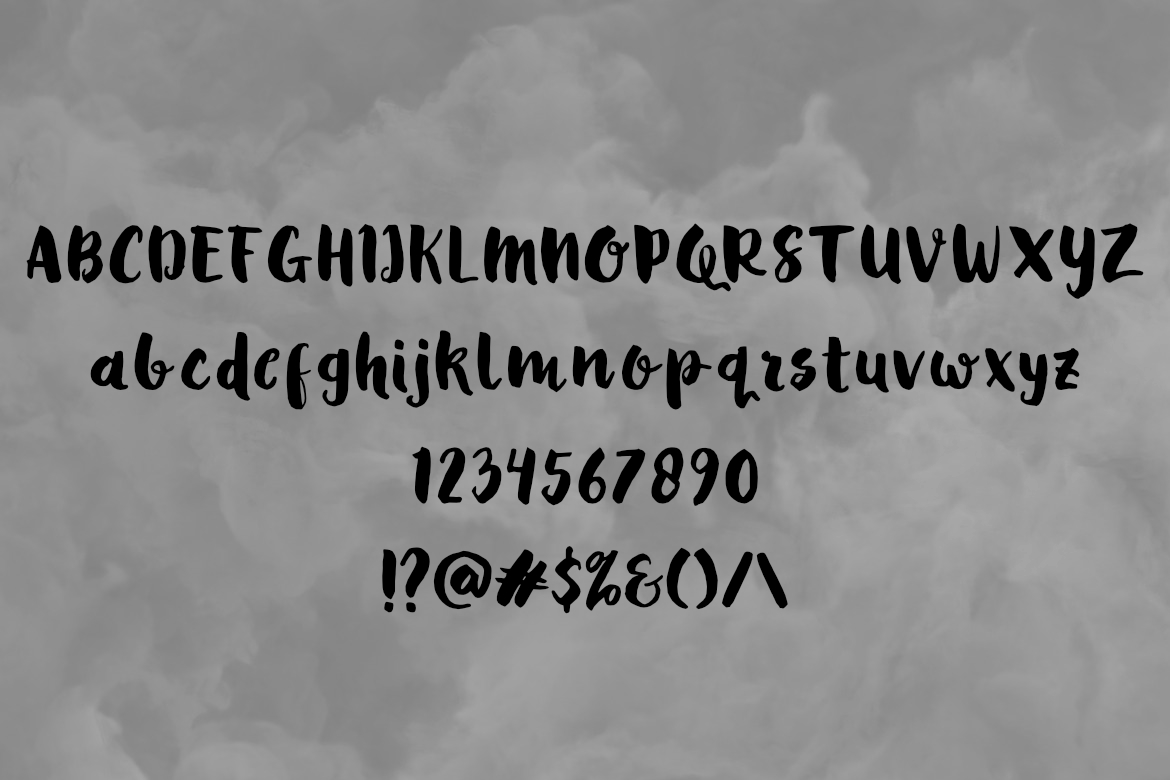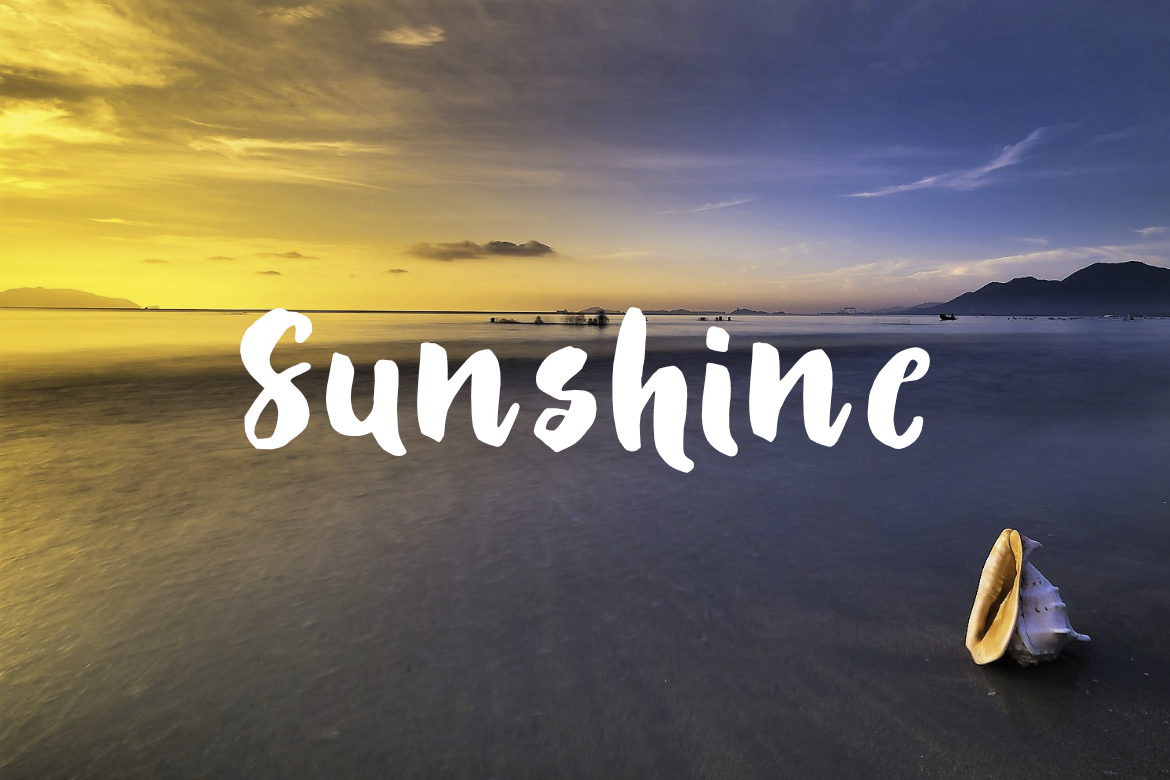
Introduction to Senja Sky Font
Have you ever found yourself in the middle of a creative project, struggling to find the perfect font to bring your vision to life? You’ve scrolled through countless options, only to end up with something that just doesn’t feel quite right. But what if I told you there’s a font that could change all that? Introducing the Senja Sky Font, a unique and charming script that’s sure to add a touch of magic to your next design project.
Whether you’re working on a personal project or a client’s design, the Senja Sky Font is a valuable resource that’s sure to elevate your work. Its high-quality design and transparent background make it perfect for a wide range of uses, from digital displays to print materials. And the best part? You can download it for free, making it an accessible design resource for designers of all levels.
Key Features of Senja Sky Font
- High-quality font design suitable for various creative projects, including digital art and graphic design.
- Transparent background, allowing for easy integration into different design elements and backgrounds.
- High-resolution design (up to 2048×2048 pixels) ensures crisp and clear typography in various display sizes.
- Designed with versatility in mind, making it suitable for both personal and commercial use.
- Perfect for designers and artists looking for a unique and creative design resource to elevate their projects.
Honest Review: Senja Sky Font
I recently stumbled upon the Senja Sky Font and was excited to give it a try. As a designer, I’m always on the lookout for high-quality design resources to elevate my creative projects.
The Senja Sky Font did not disappoint. It features a unique and modern design that can add a touch of elegance to any project. The font is available for free download, which is a major plus for designers on a budget.
Here are some things that work well with the Senja Sky Font:
- ✨ High-quality design: The font is crisp and clear, making it perfect for both digital and print projects.
- ✨ Transparent background: This makes it easy to use the font over any background or image.
- ✨ Versatile: The font can be used for a variety of projects, from logos to typography-based designs.
- ⚠️ Limited character set: The font only includes a limited set of characters, which may not be suitable for projects that require a full character set.
- ⚠️ Not suitable for small text: Due to its modern design, the font may not be ideal for small text sizes.
Overall, I’m impressed with the Senja Sky Font and would definitely recommend it for designers working on creative projects. Just be aware of its limitations and use it accordingly.
Senja Sky Font is a versatile design resource that can be used in various creative projects, such as:
- Posters